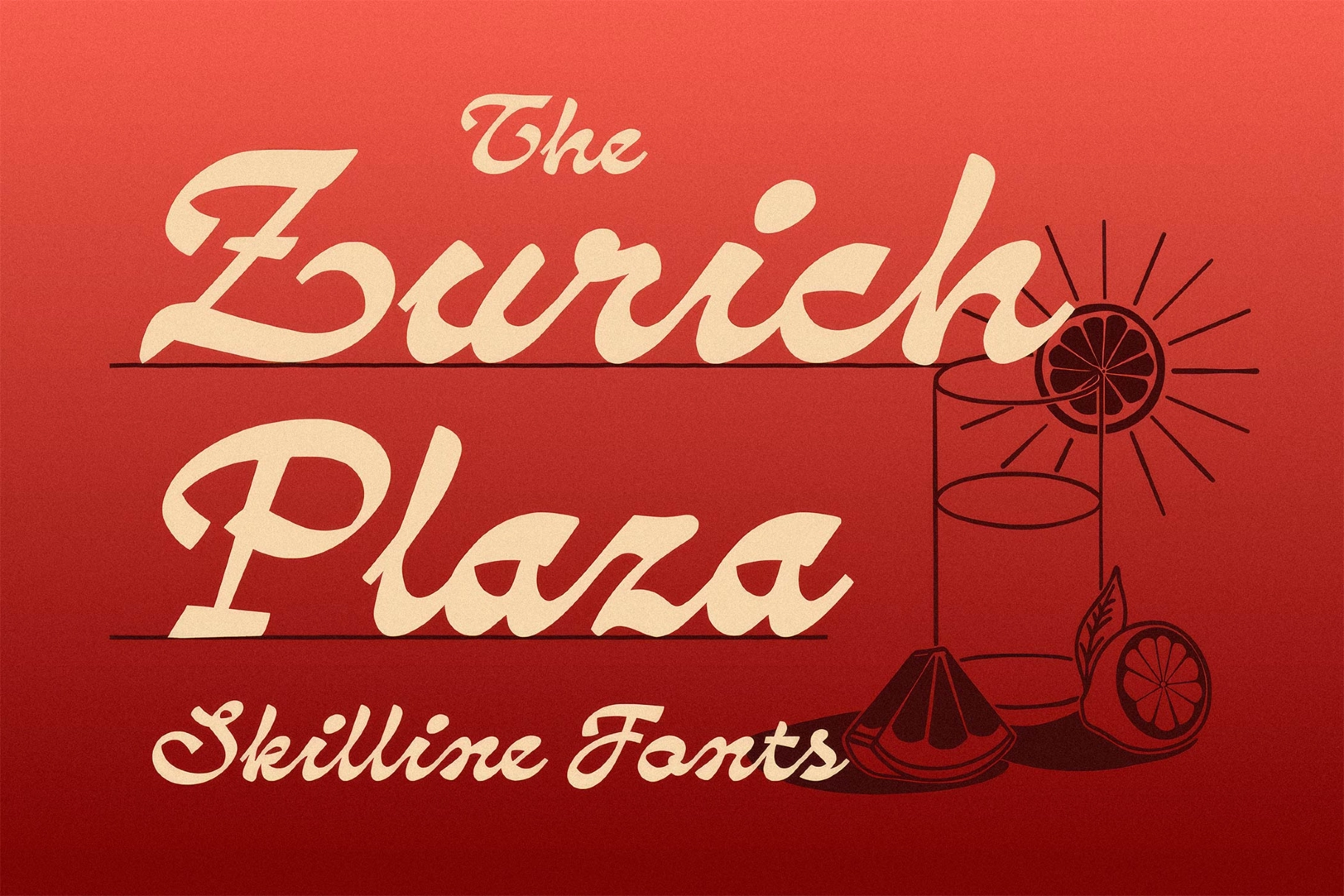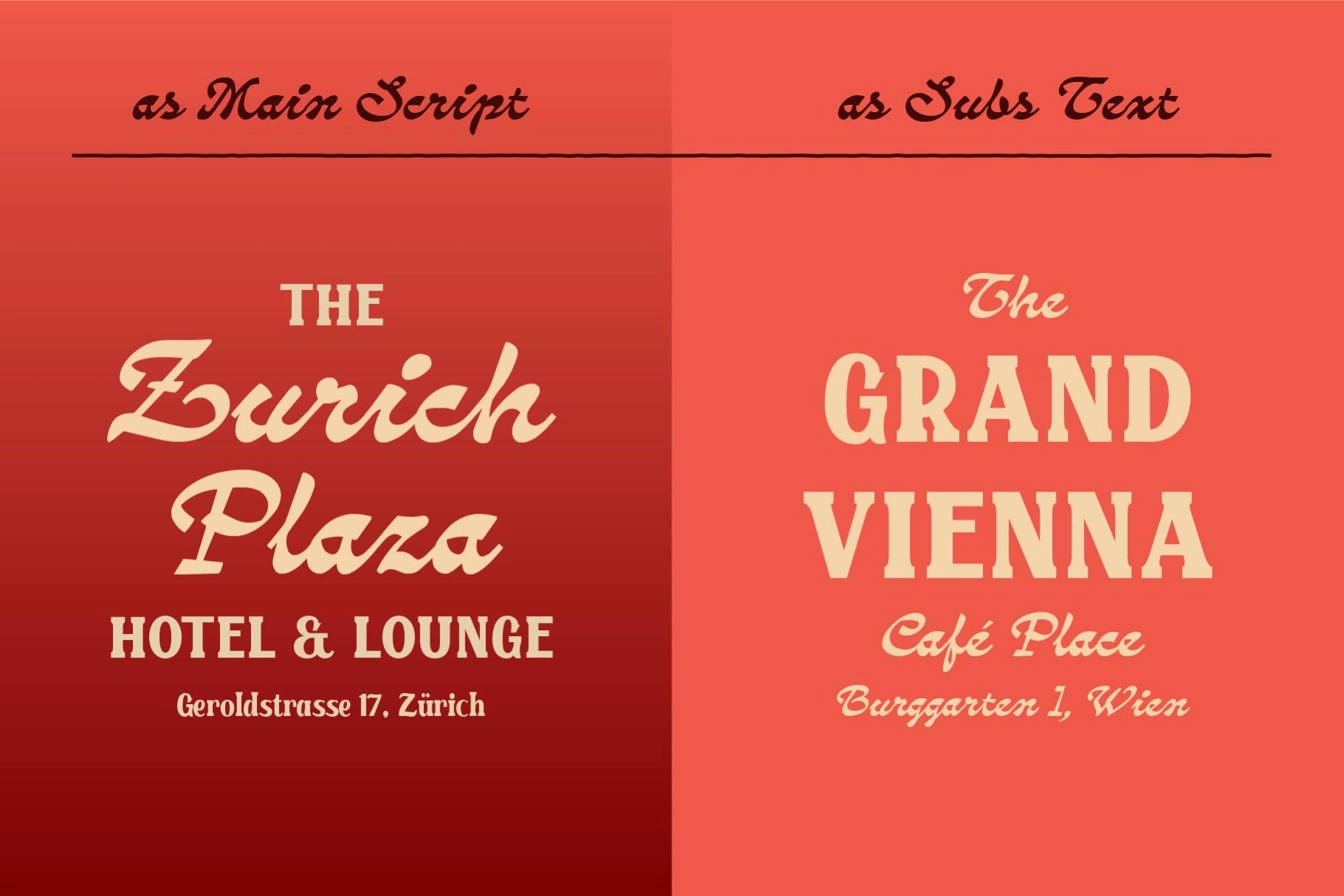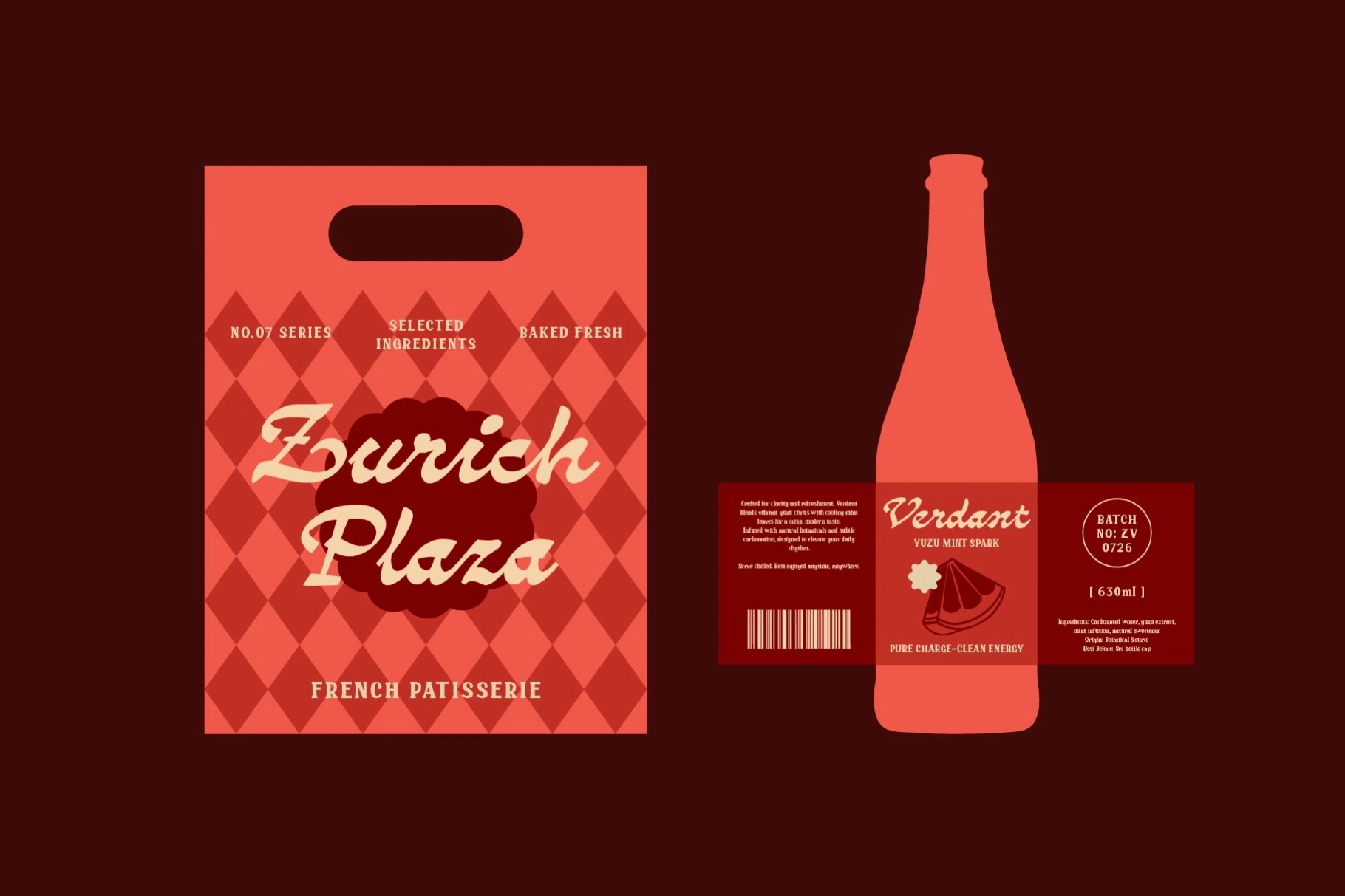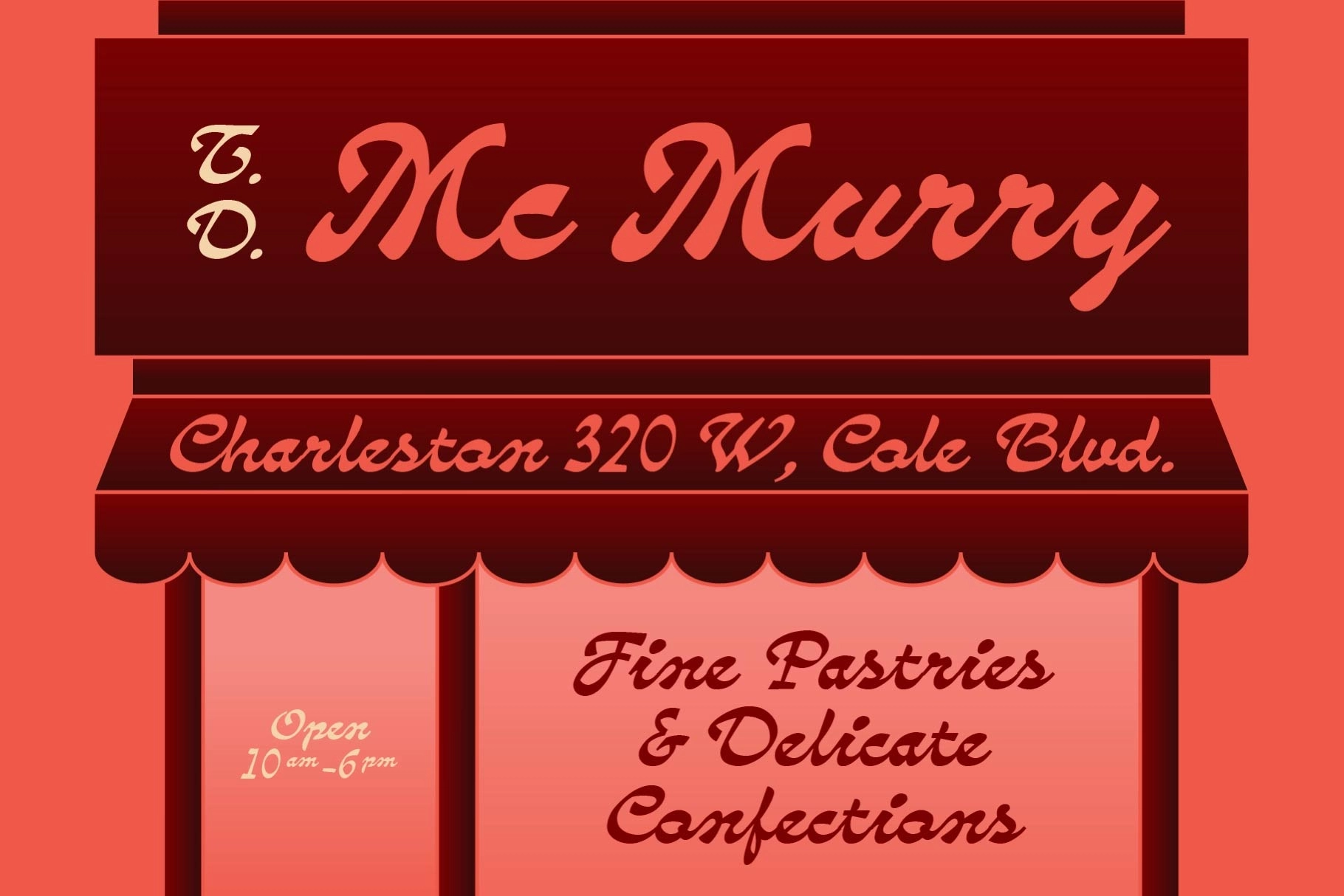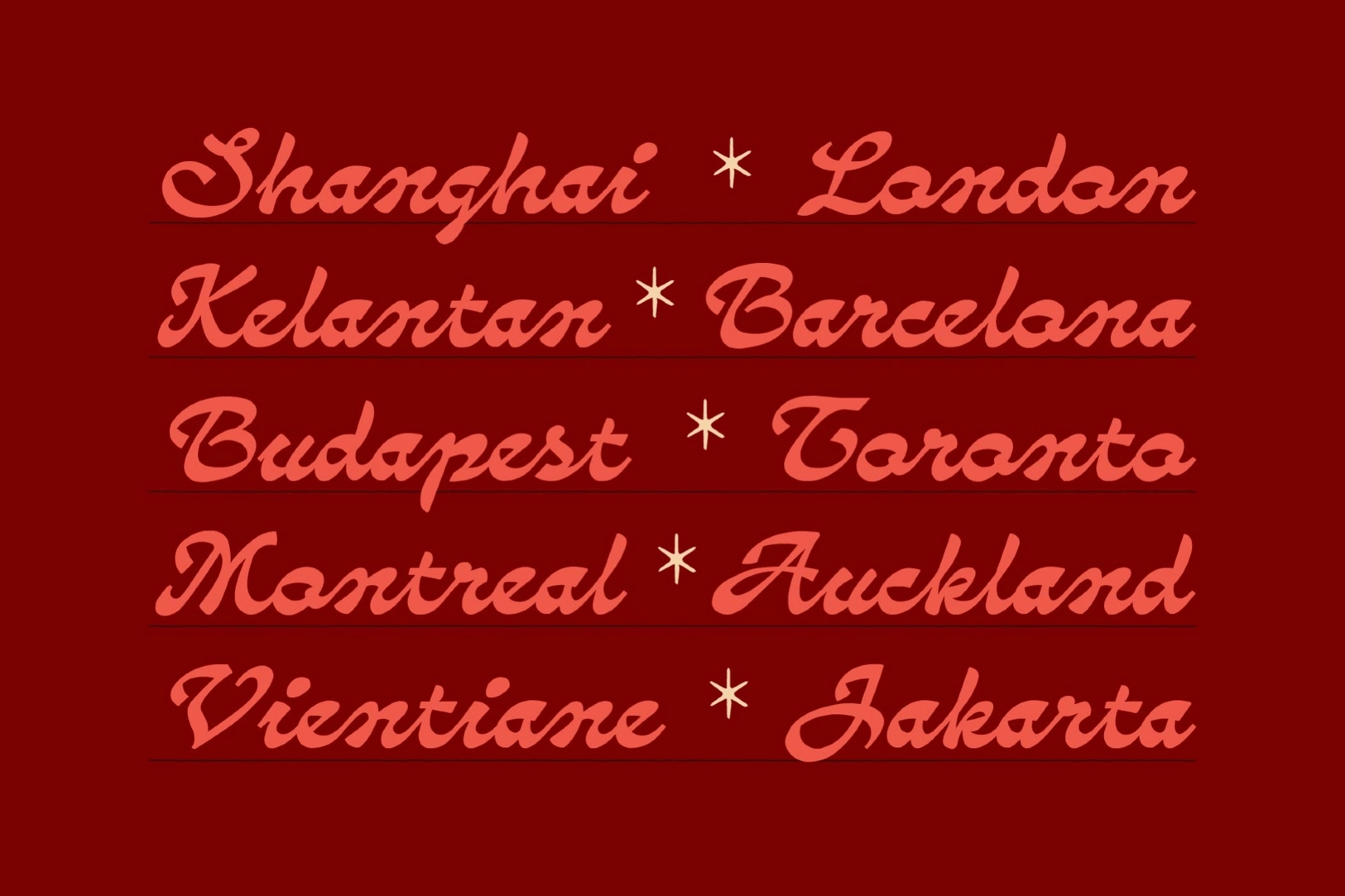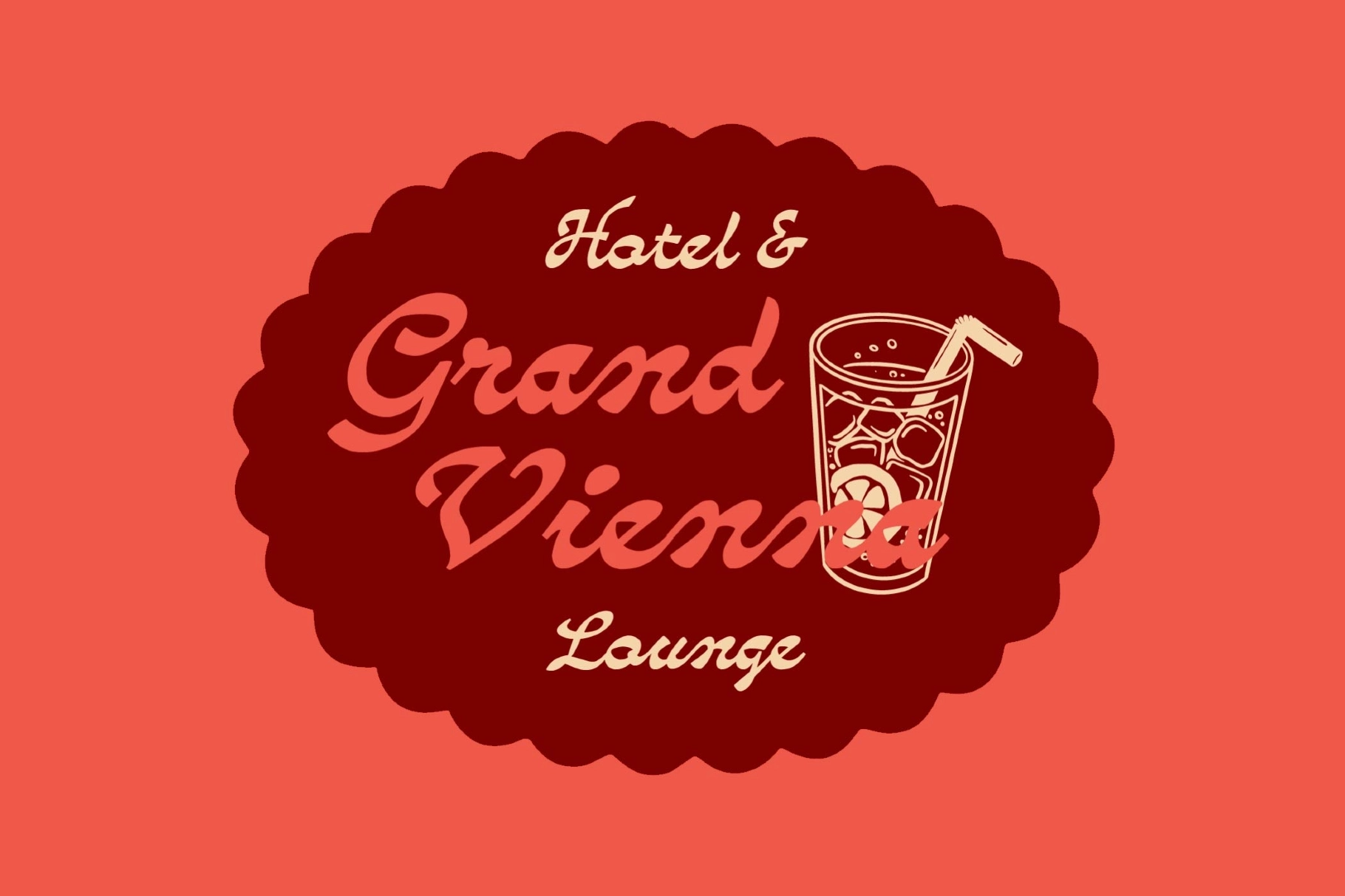
Zurich Plaza - Vintage Script Font
SFC Zurich Plaza
Zurich Plaza pulls its lettering from old European café signage and hand-painted storefront lettering, cut as a vintage script font with smooth, swelling strokes and confident connecting curves. The letterforms keep a steady rhythm rather than a jittery hand-drawn wobble, so the script stays legible even with its full swing intact.
The script holds up best in short, confident lines — a café name, a hotel wordmark, a single signature phrase. Use it for café and restaurant branding, hotel and hospitality signage, beverage labels, boutique packaging, wedding stationery, and editorial titling.